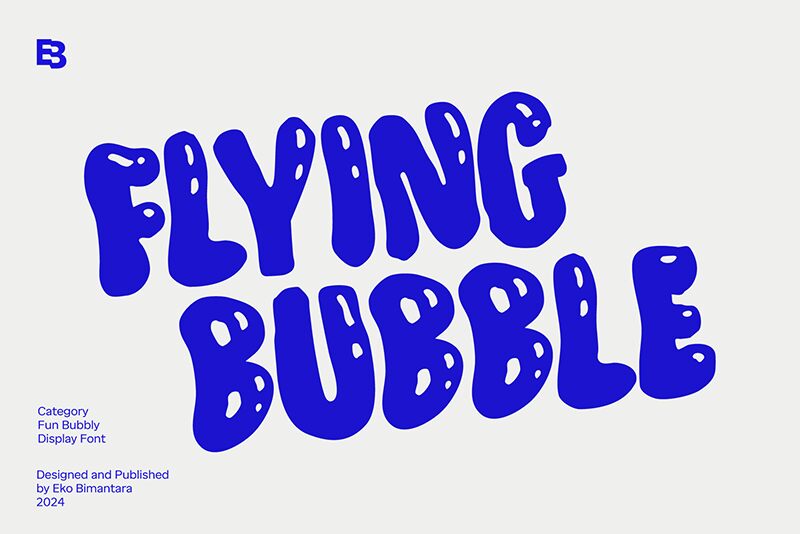
Flying Bubble
Flying Bubble font by Eko Bimantara is rich in spontaneity, creative, and whimsical vibes that show in every curve. This free display cartoon font has a textured appearance with many irregularities noticeable. It carries a retro vibe across every character set whose bold lines have round shapes.
Use Flying Bubble for eye-catching trendy headlines, book covers, T-shirt designs, packaging labels, shop banners, movie posters, album covers, app icons, or advertisements. The condensed typography will suit greeting cards as well as web pages upgrades smartly and effortlessly!